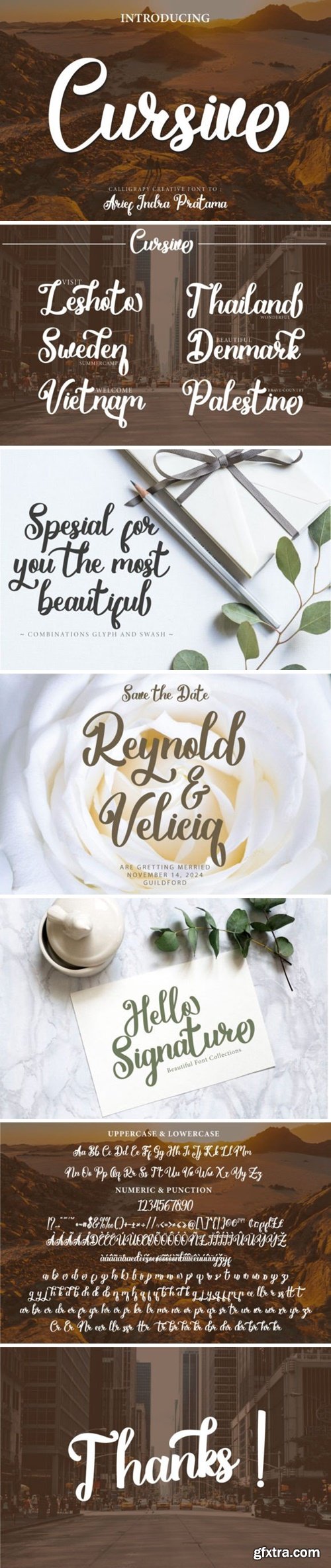
Cursive is a typographic masterpiece that seamlessly blends the expertise of calligraphy with artistic aesthetics. With its gentle strokes and meticulous details, each letter dances on the page like ink gracefully unfolding.
Cursive is not just a font; it’s a visual experience that captivates. Striking the perfect balance between creativity and readability, this font radiates timeless allure and can be used to convey messages with a captivating flair. The colors and nuances within each character create an enchanting and warm ambiance. This font is well-suited for projects that demand a personal touch, such as wedding invitations, greeting cards, or design projects that prioritize beauty and uniqueness.